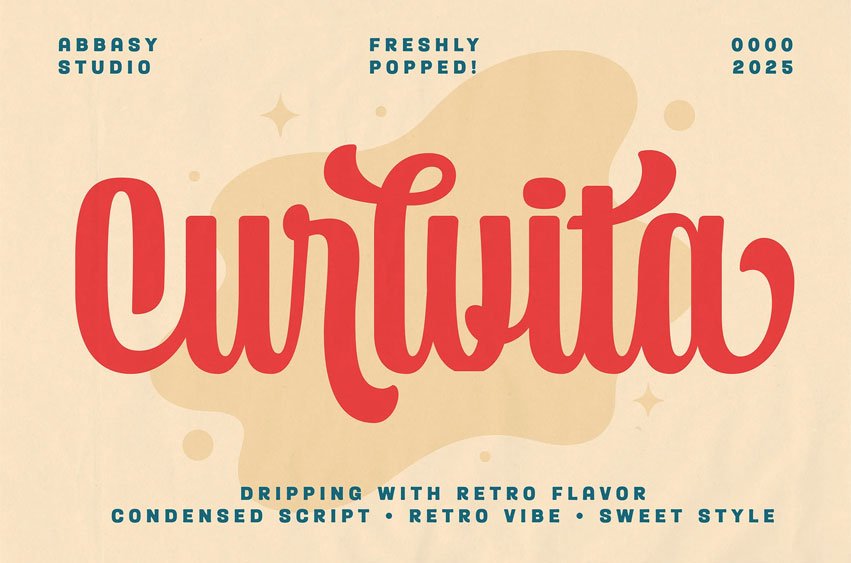
Curlvita Font Retro Condensed Script. Curlvita is a sweet, playful, and full-of-character retro script typeface. With its dynamic, flowing curves and unique, condensed style, Curlvita brings nostalgic vibes with a modern twist. Perfect for logos, vintage posters, product packaging, creative branding, and social media designs that require a distinctive and memorable presence.
Packed with over 490 glyphs including contextual alternates, stylistic alternates, ligatures, and swashes – Curlvita gives you endless creative possibilities. It also supports multilingual characters and comes in both regular and italic styles for maximum versatility.
- 490+ glyphs
- Alternates & Ligatures
- Swashes
- Regular & Italic
- Multilanguage Support
Bring charming retro energy to your designs with Curlvita